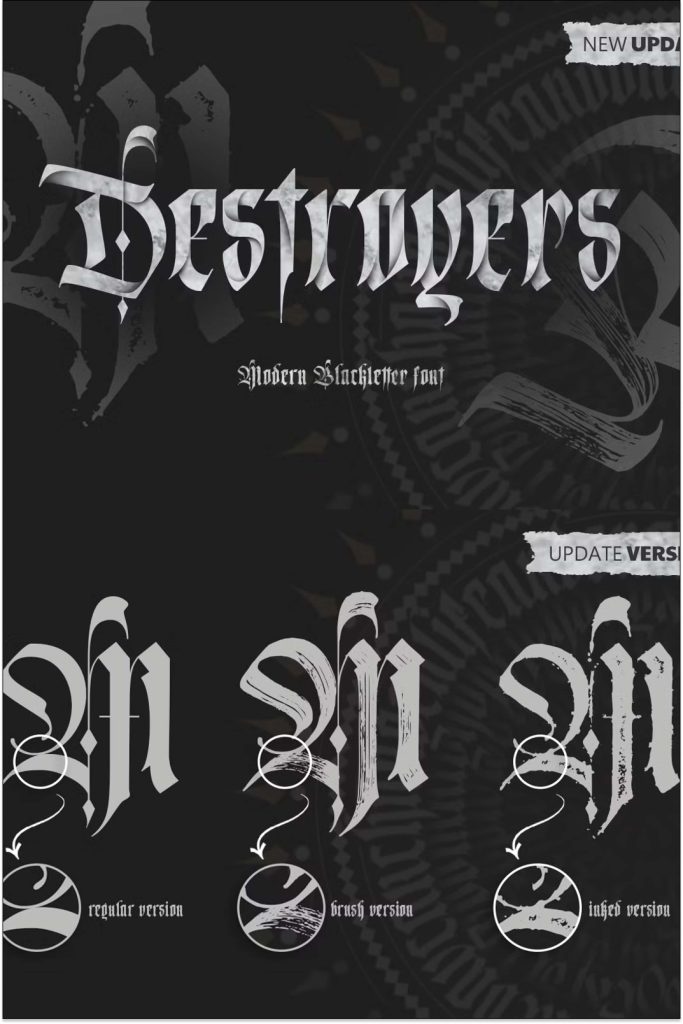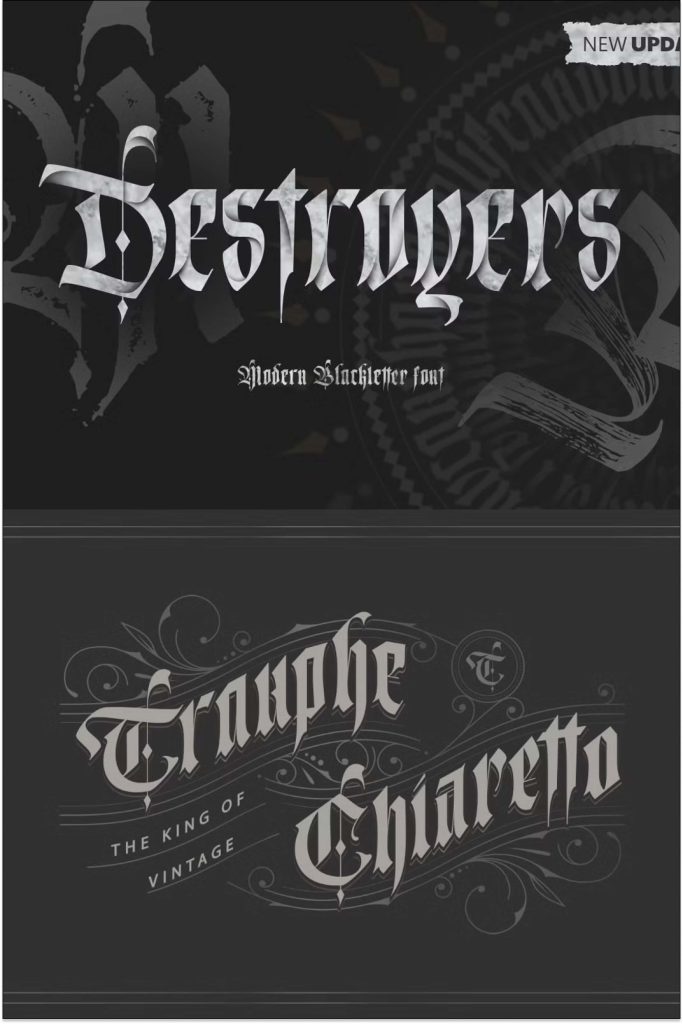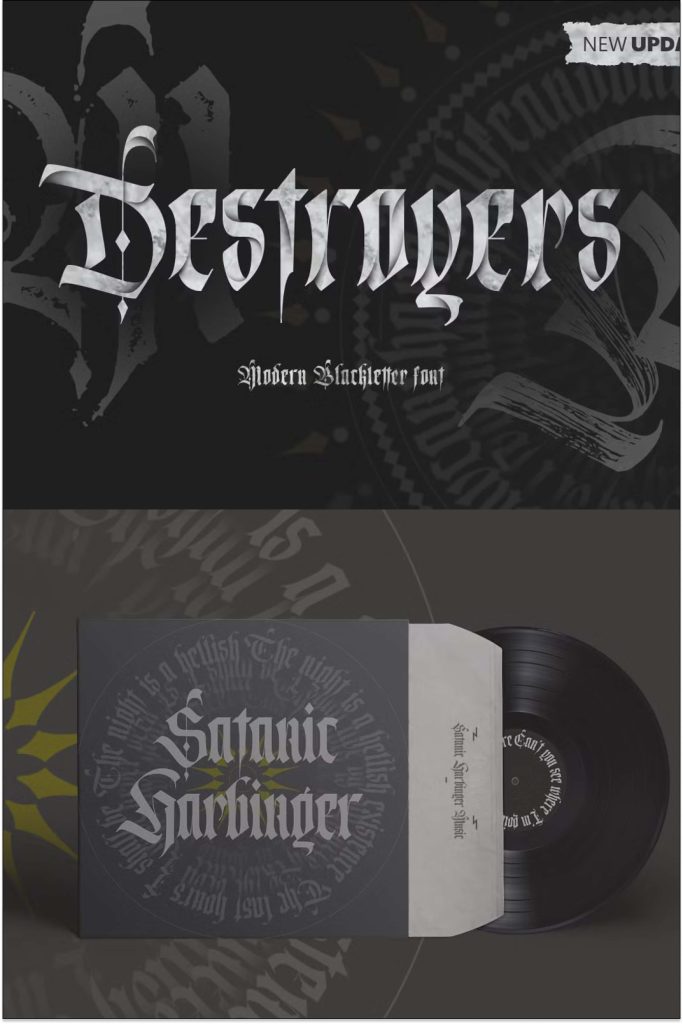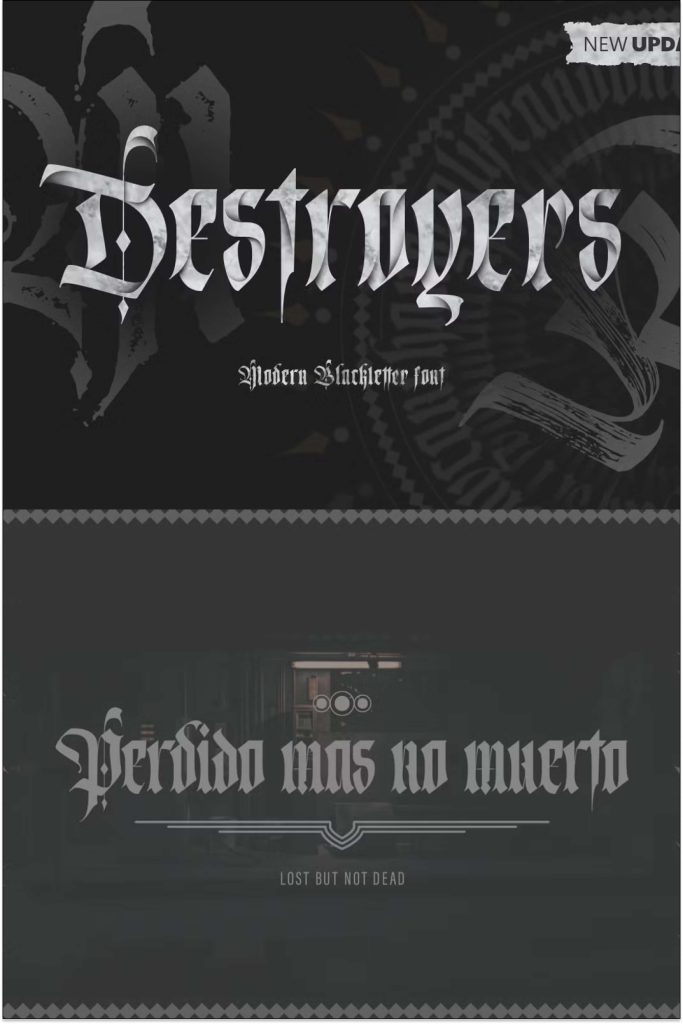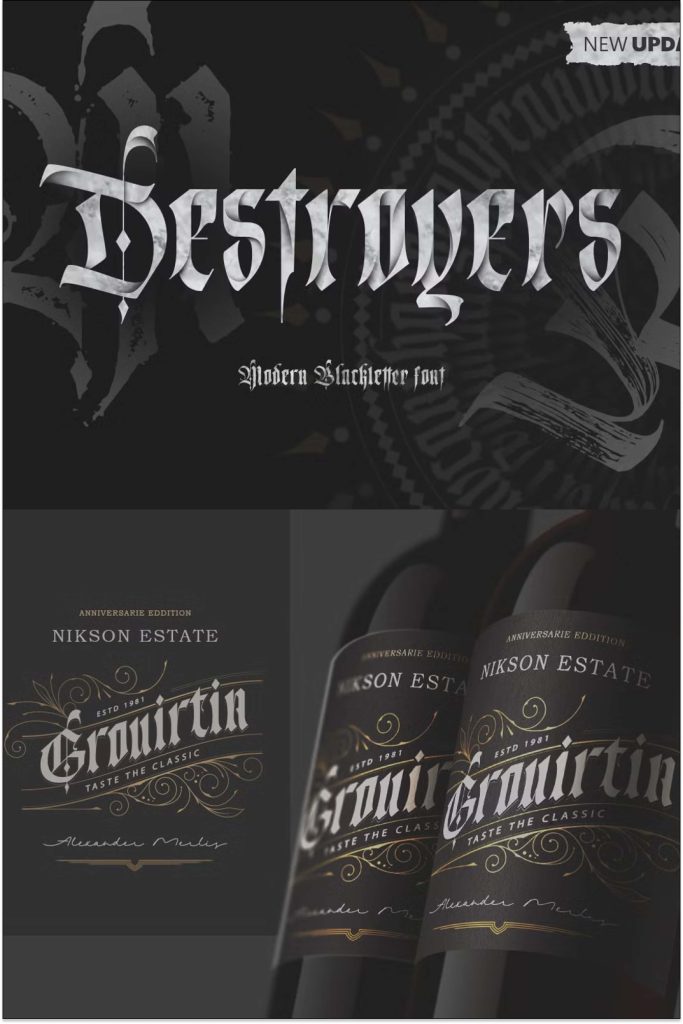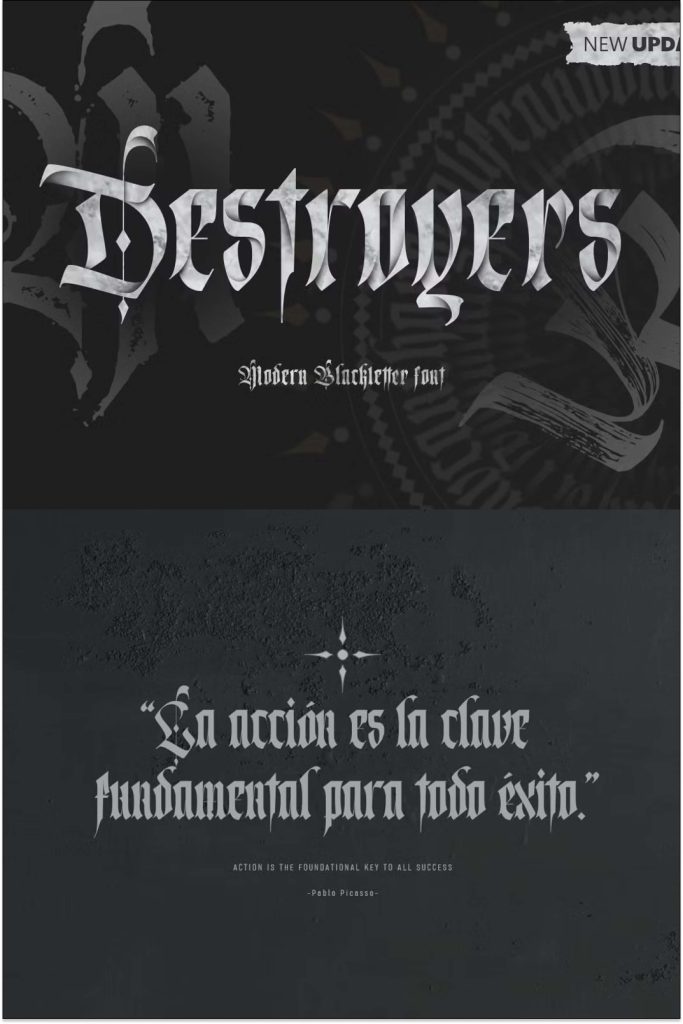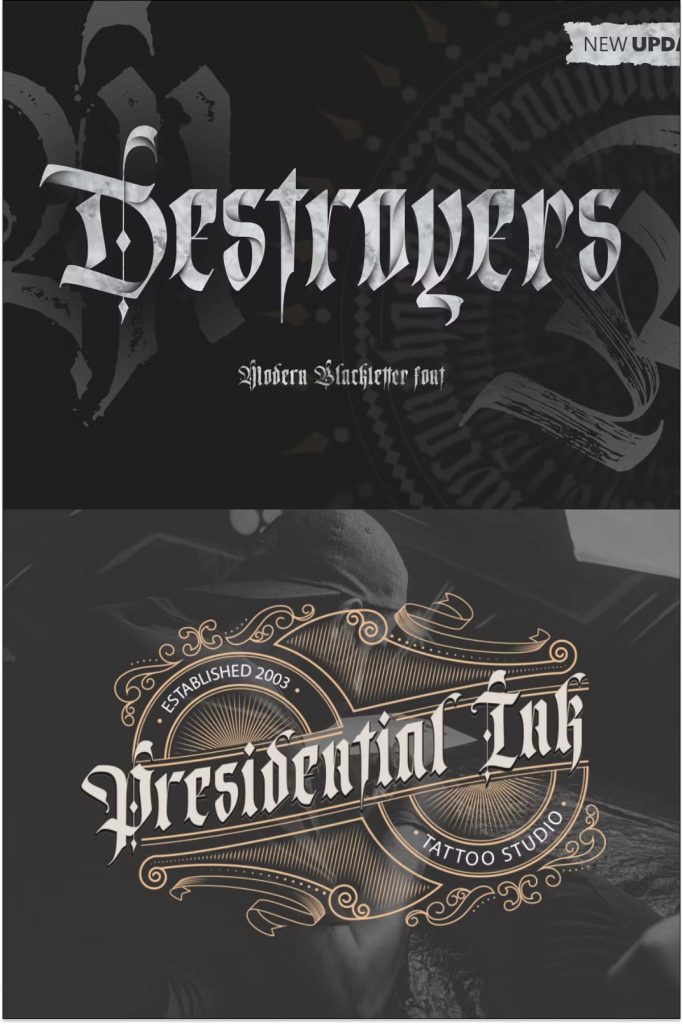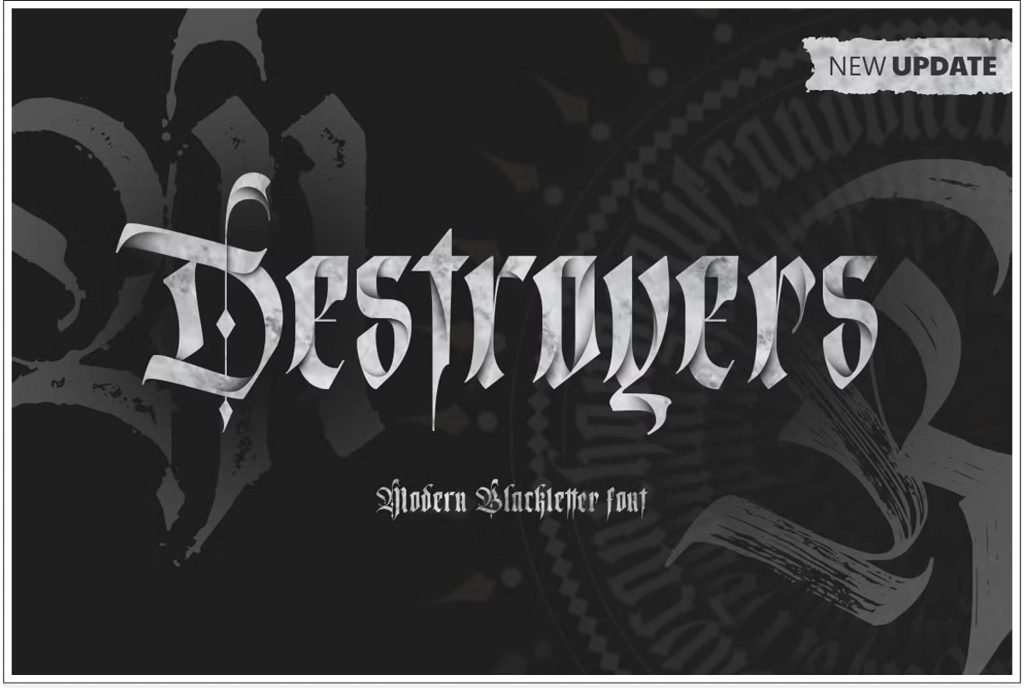
Destroyers-Blackletter (NEW UPDATE!)leastedJune 15, 2025Fonts Unleash the power of darkness with Destroyers, a blackletter font forged for those who dare to stand out. Download